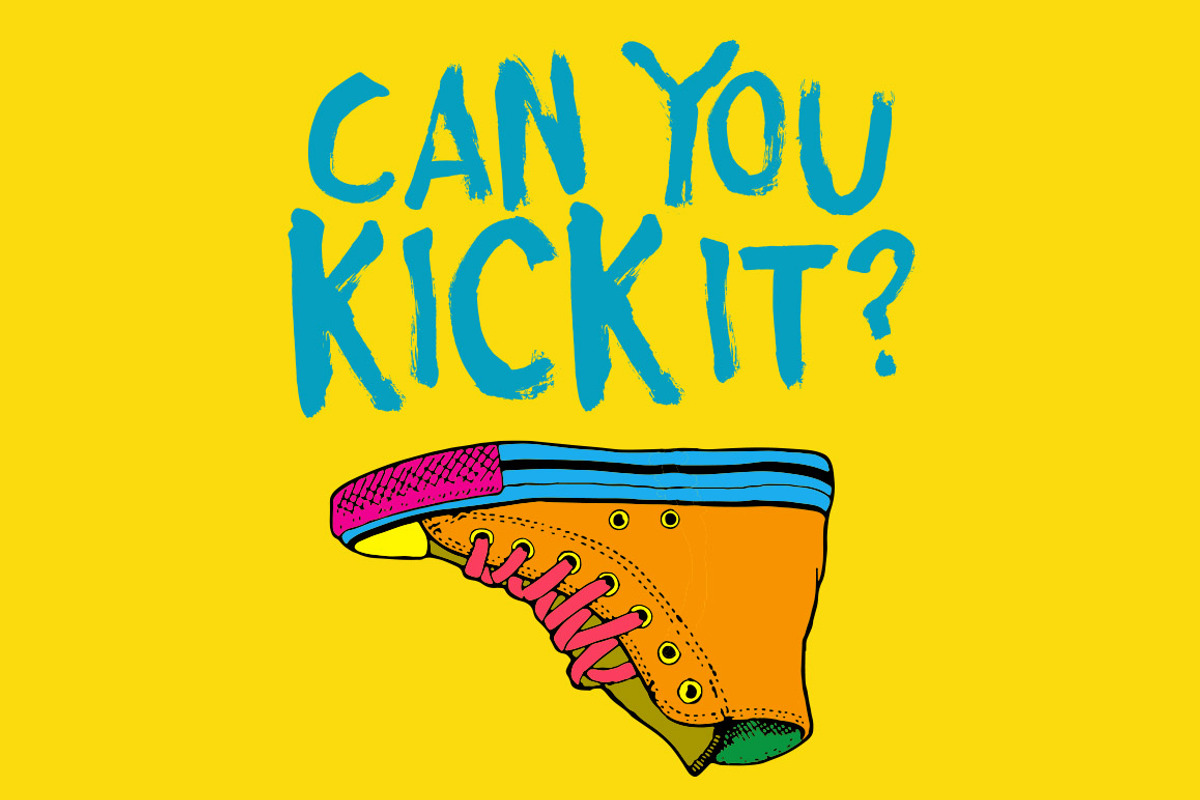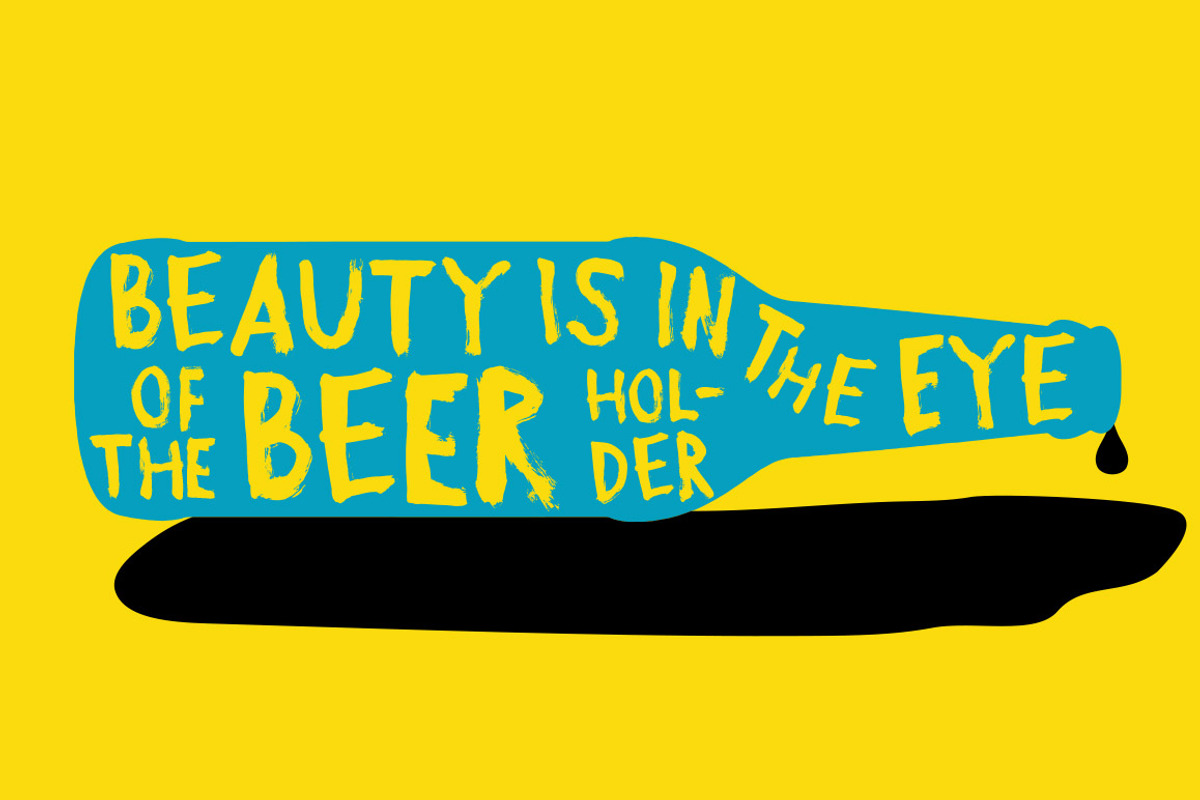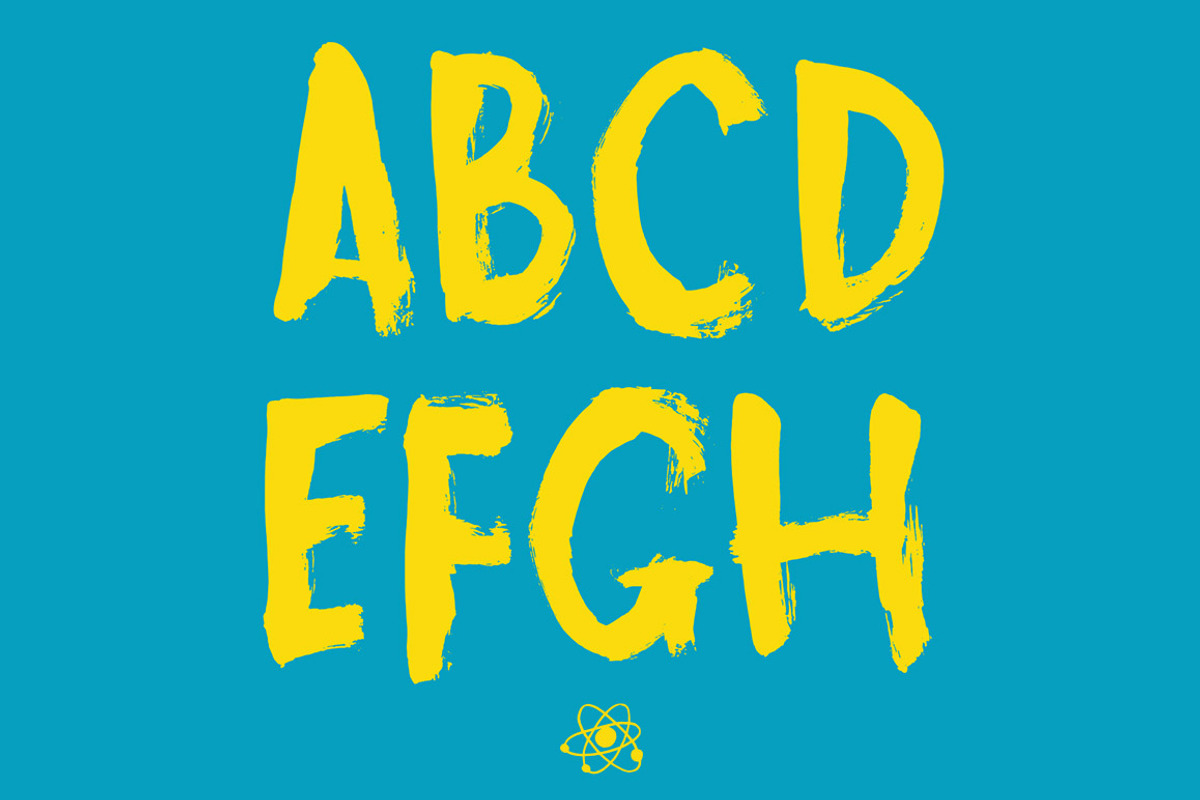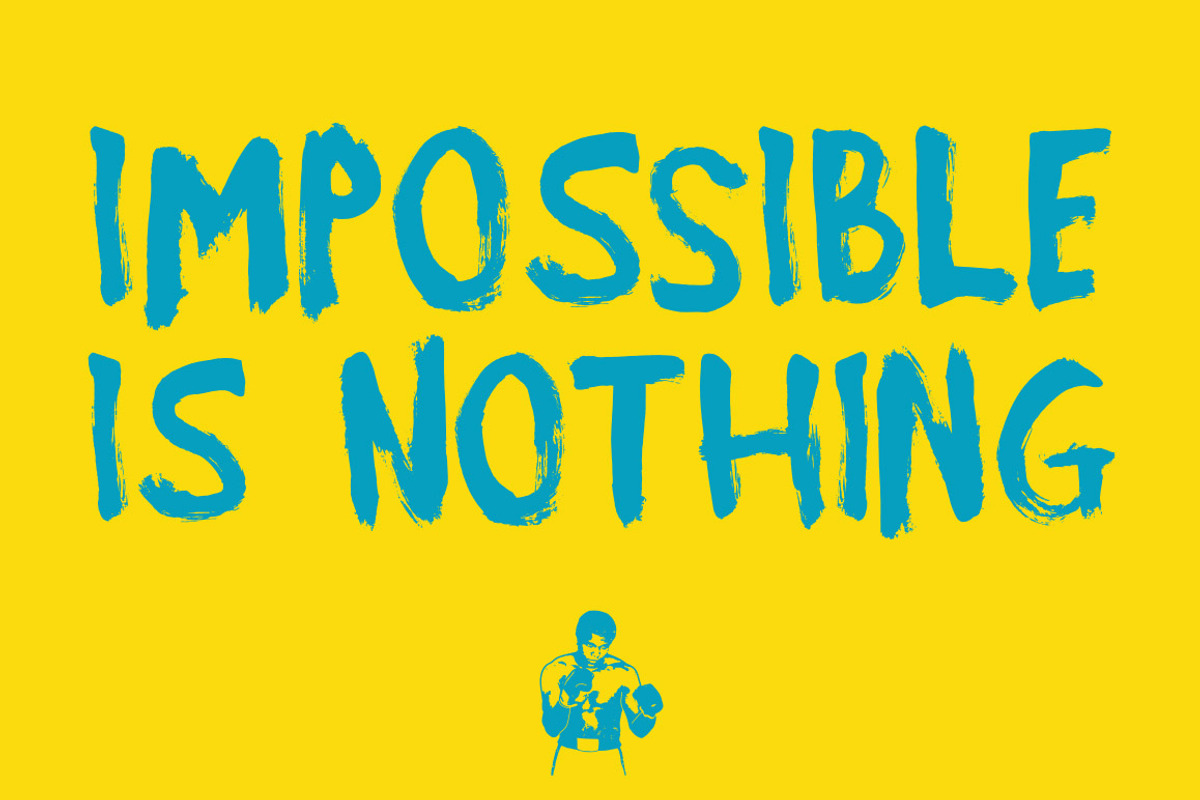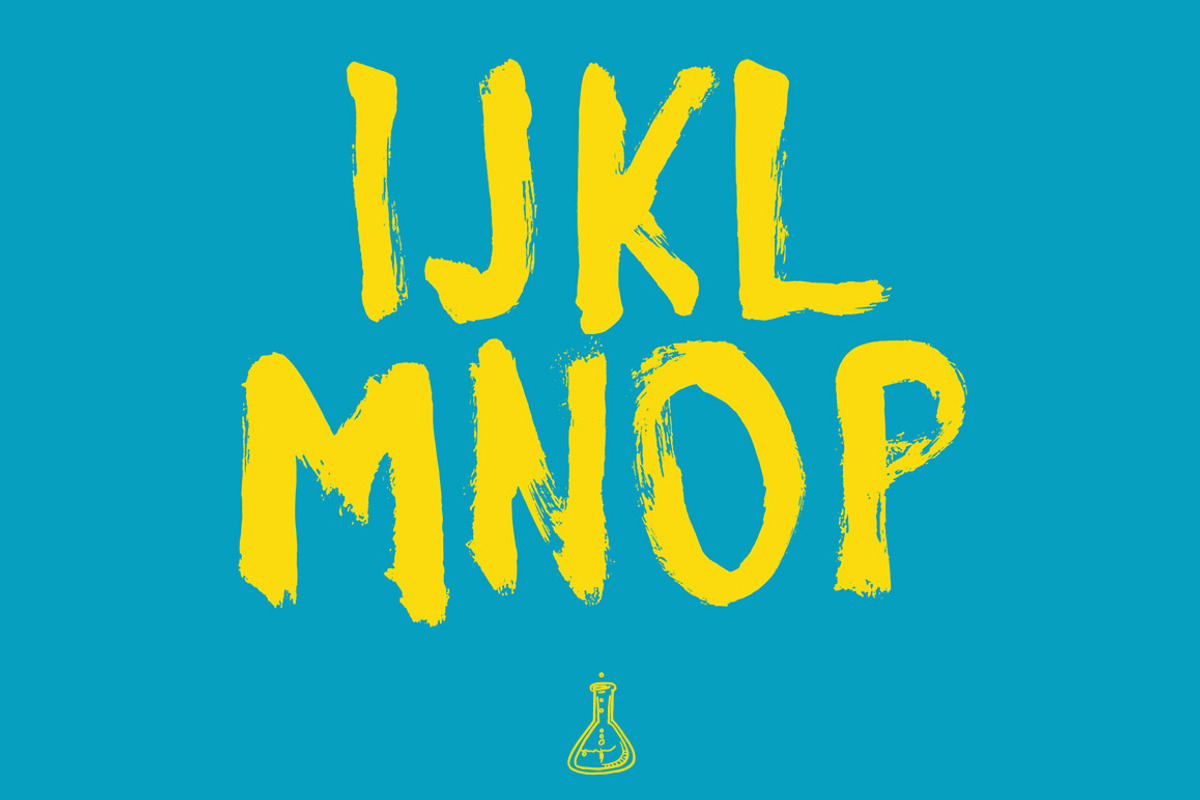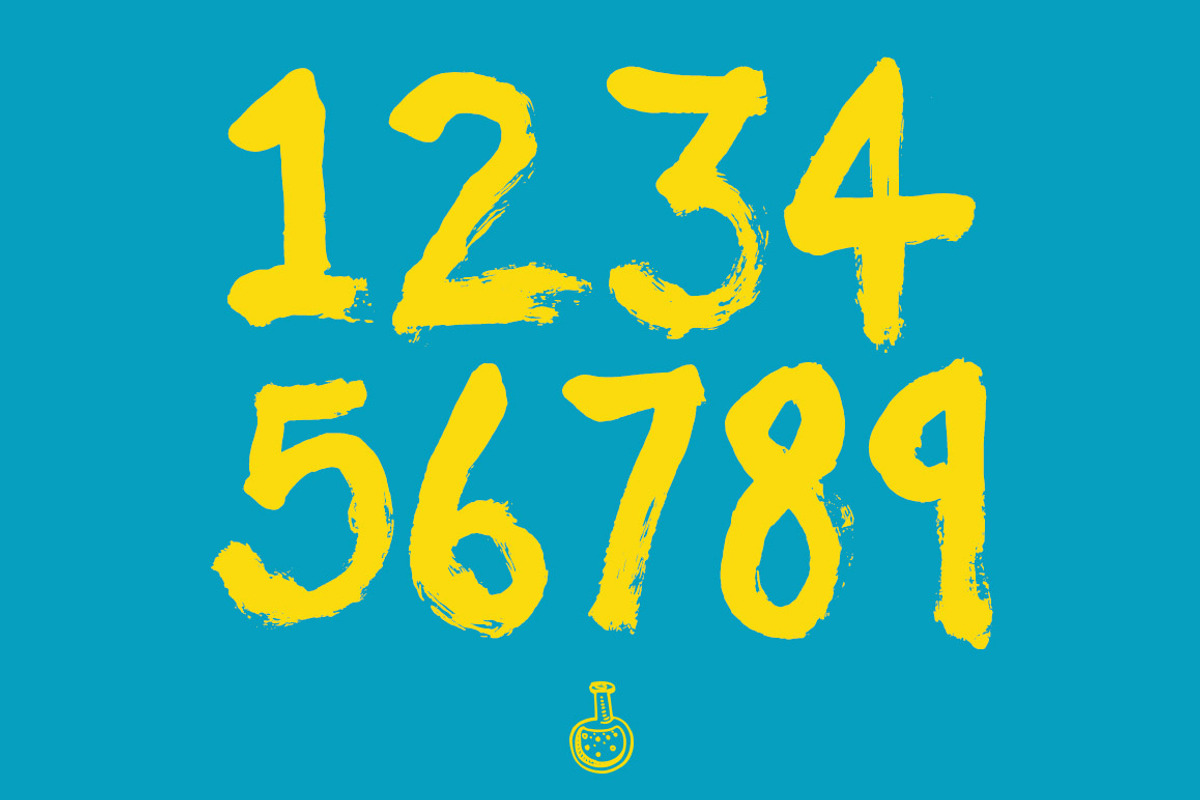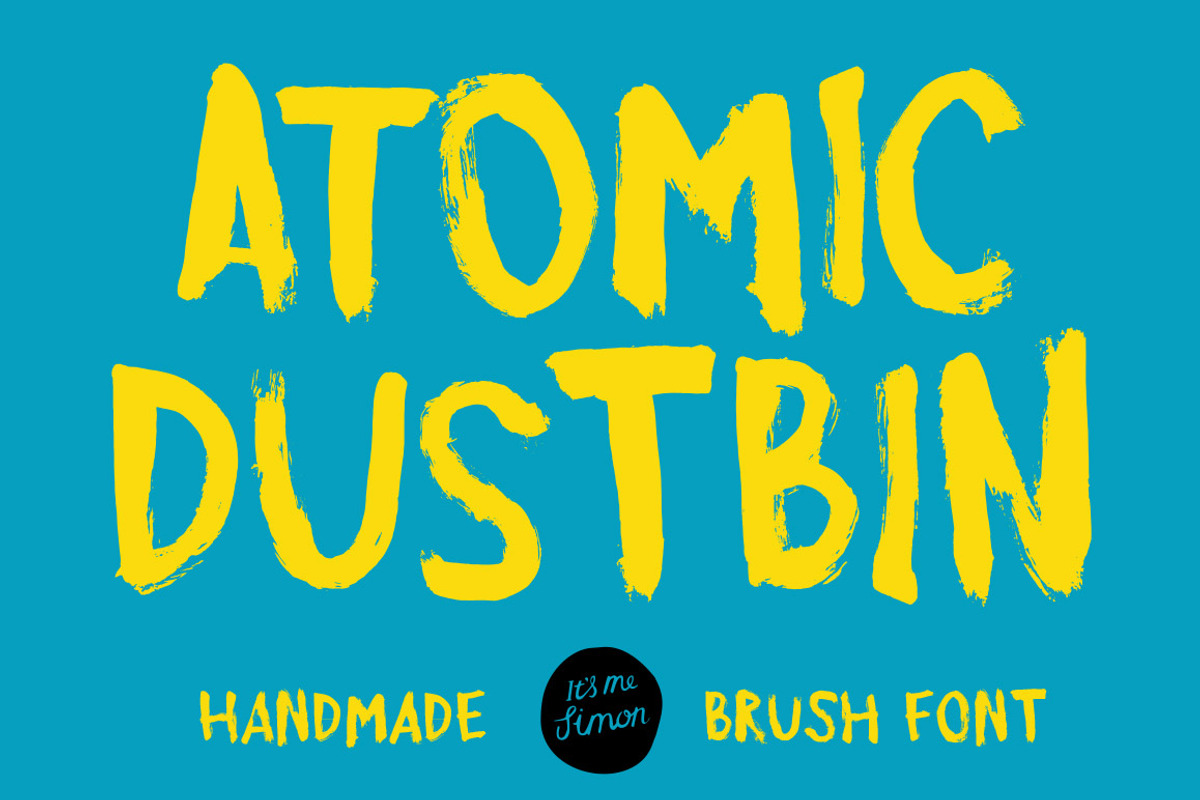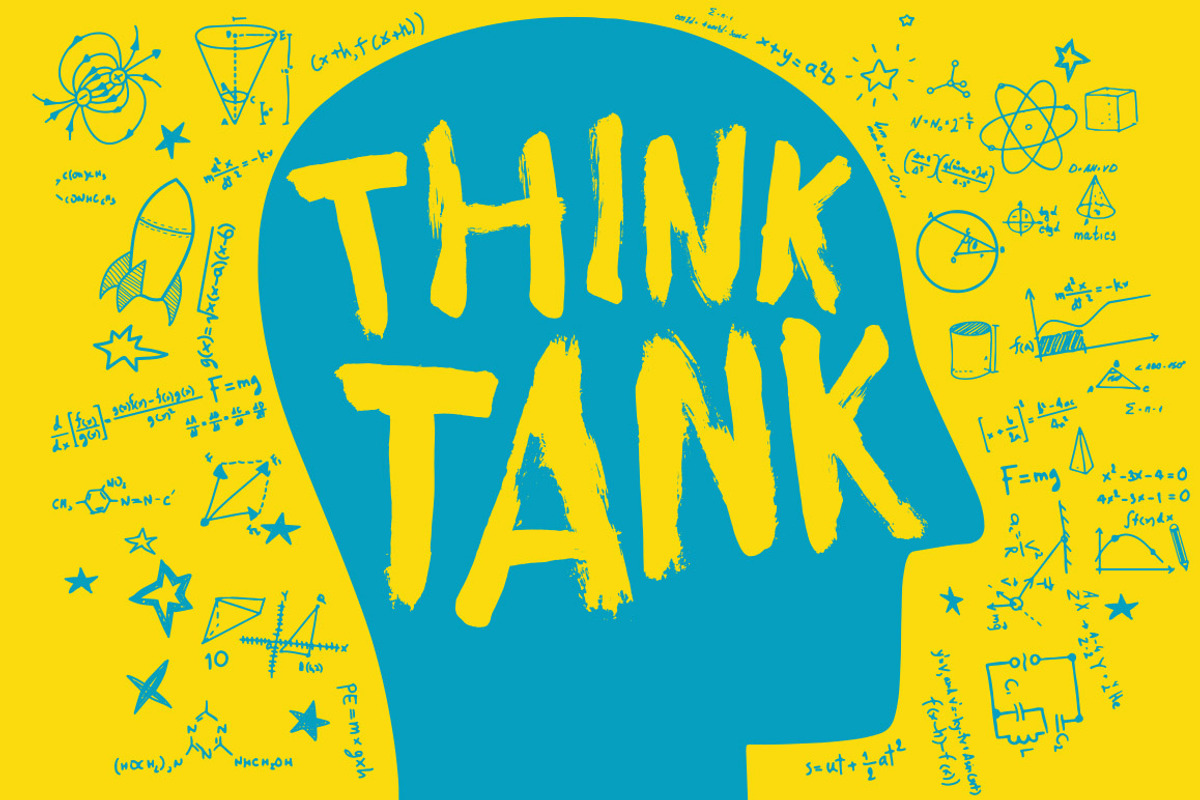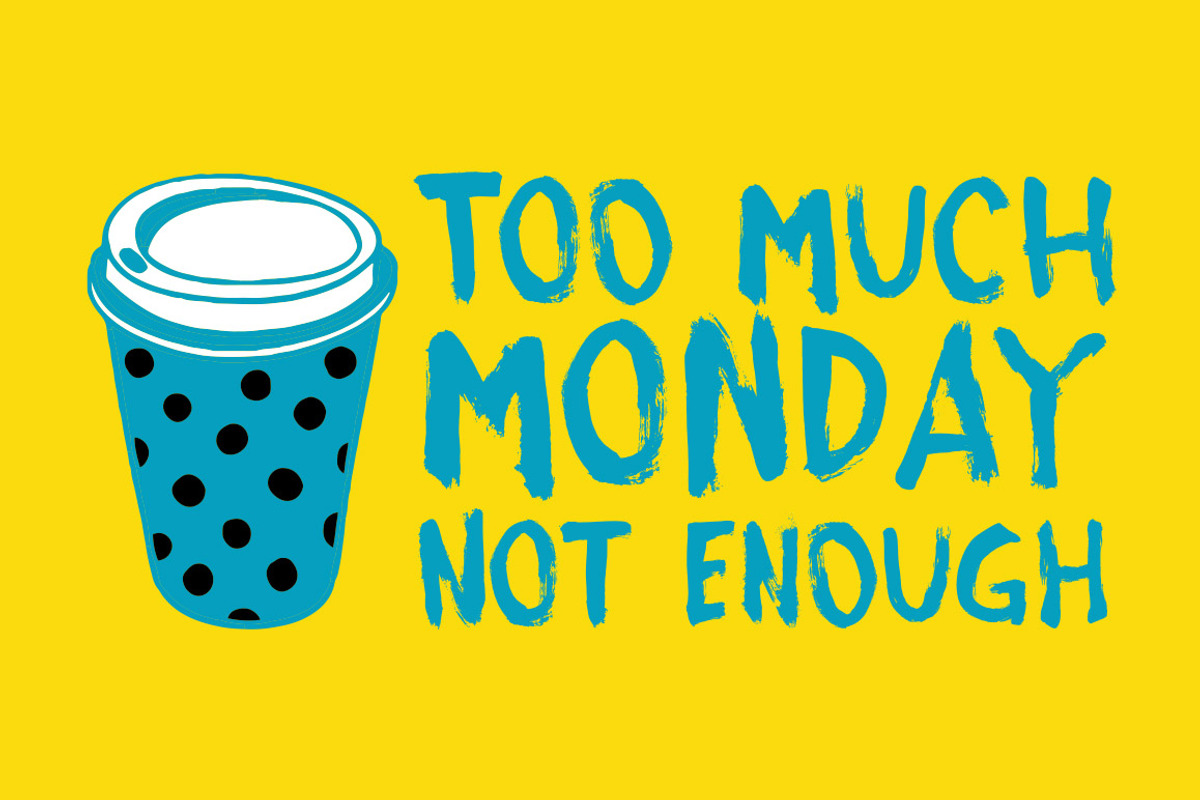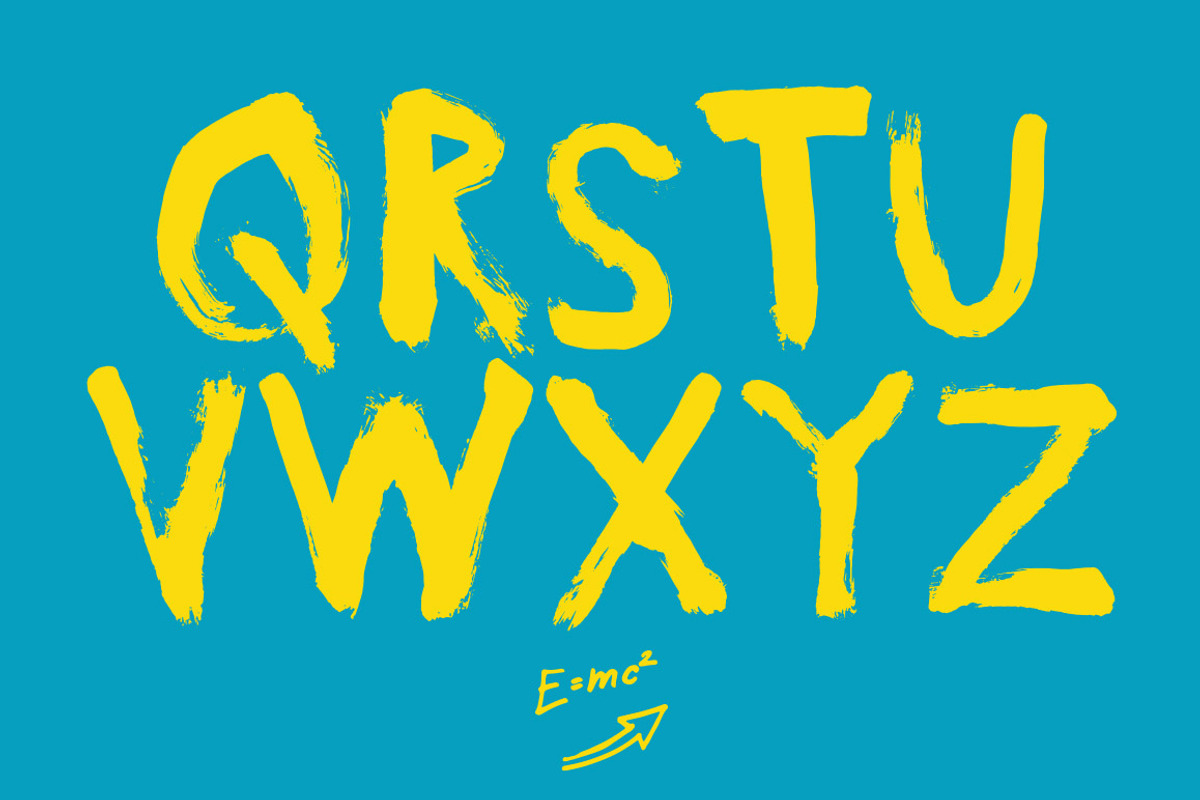
Brush font Atomic Dustbin display
Atomic Dustbin a grungy handmade brush display font. It was created with a thick dry brush , black ink and paper. I was trying to get that dirty brush stroke look and feel, with all the lovely detail that can produce.
I named the font after the 90's indie band Neds Atomic Dustbin. Who got the name from an episode of the goon show.
It's a unicase font so it has no lowercase glyphs. That makes it perfect for bold and heavy headlines. It's messy so it's going to give you that graffiti/urban style.
Opentype Alternatives
Atomic Dustbin has 3 alternatives for each letter and 2 for each number, and a few extra punctuation marks.
Using OpenType contextual alternatives that cycle through the glyphs and to give you a more random looking typeface.
Atomic Dustbin font includes;
- 2 styles Regular and oblique
- Contextual alternatives
- Uppercase letters only
- Punctuation & Symbols
- Western European characters
- Central European characters
- South Eastern European characters